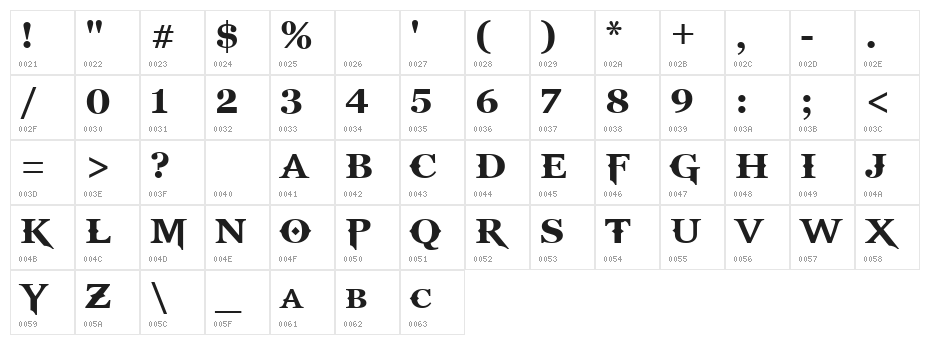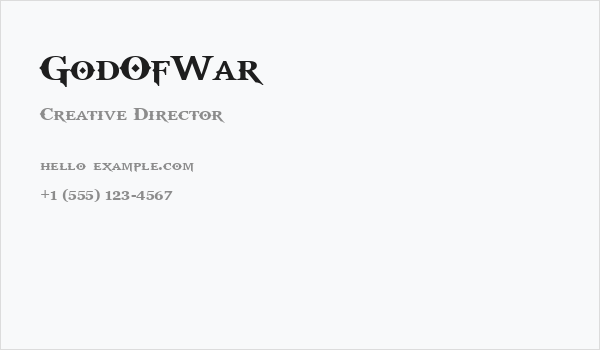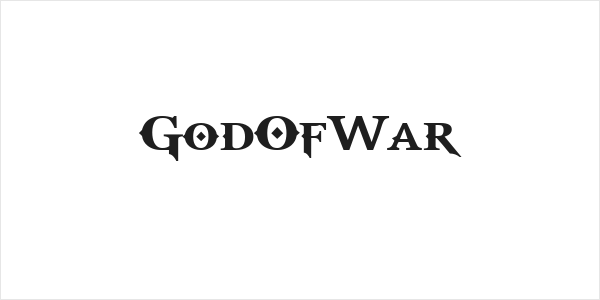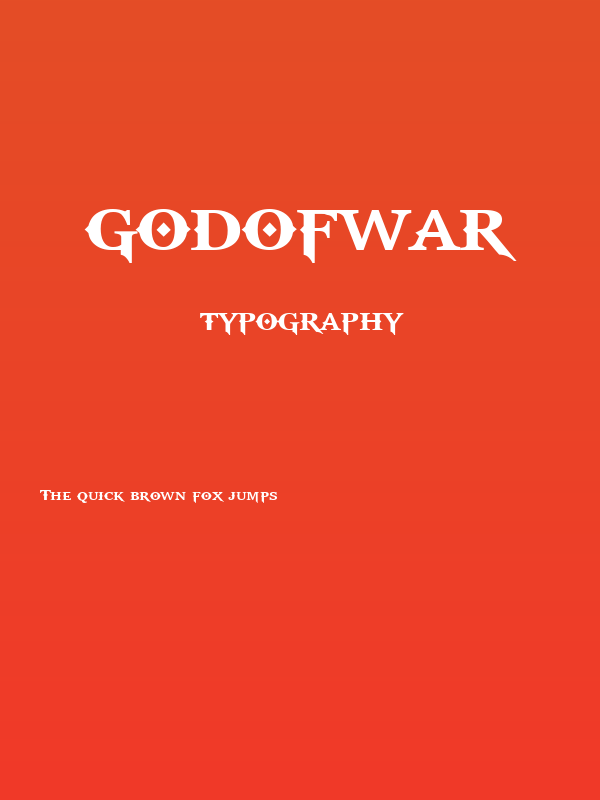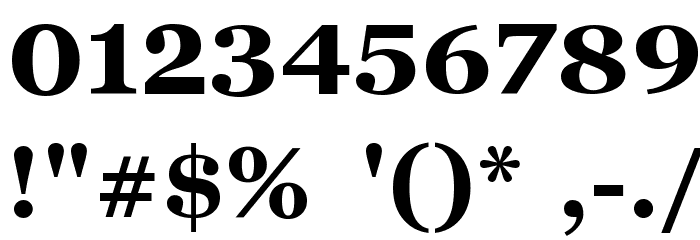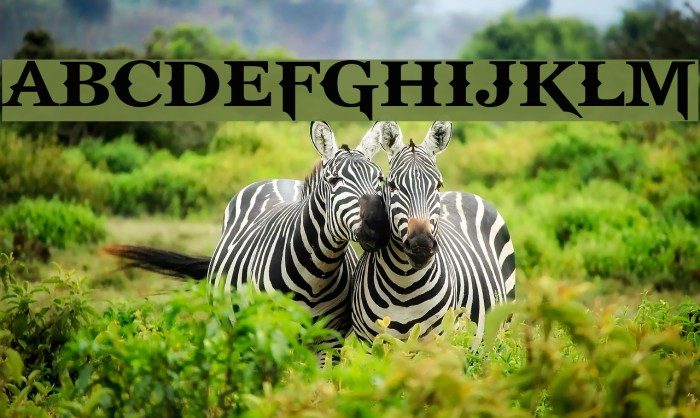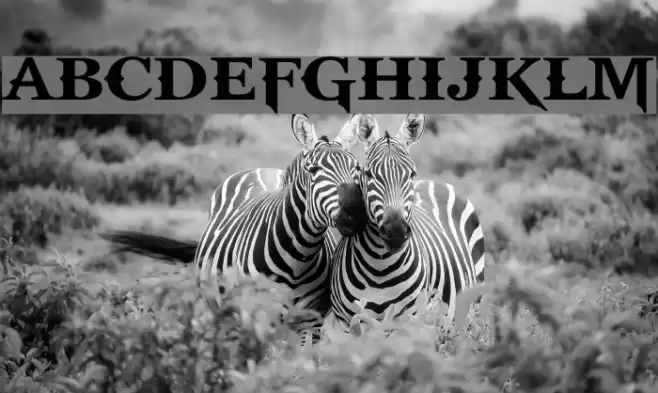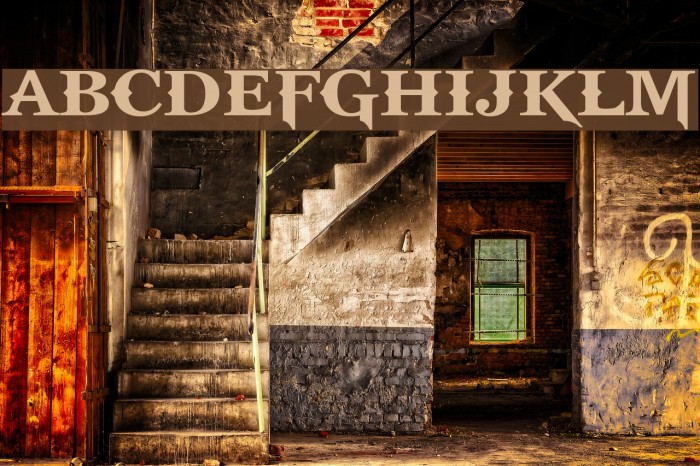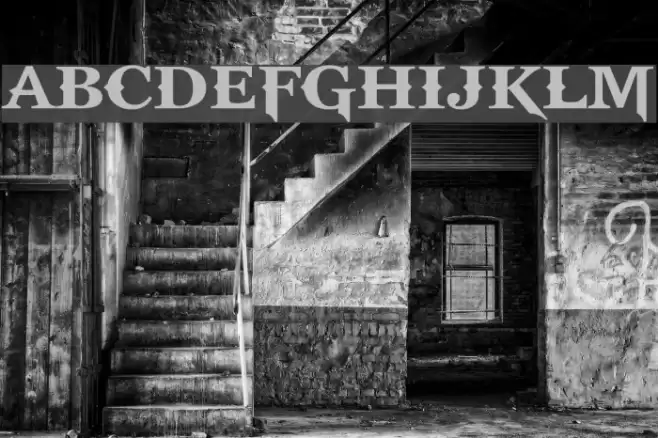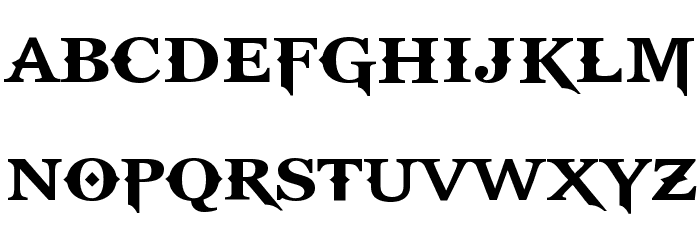
GodOfWar Font
GodOfWar Description
This font features a bold, dramatic style with sharp serifs and a distinct, angular design. The uppercase letters are particularly striking, with a strong presence that commands attention. The numerals and special characters maintain this bold aesthetic, ensuring consistency across all glyphs. The font's unique character is enhanced by its high contrast between thick and thin strokes, giving it a dynamic and powerful appearance. This font is ideal for projects that require a strong visual impact, such as branding or poster design.
| Proposed Projects | Ideal for branding, poster design, video game titles, and any project needing a strong visual impact. |